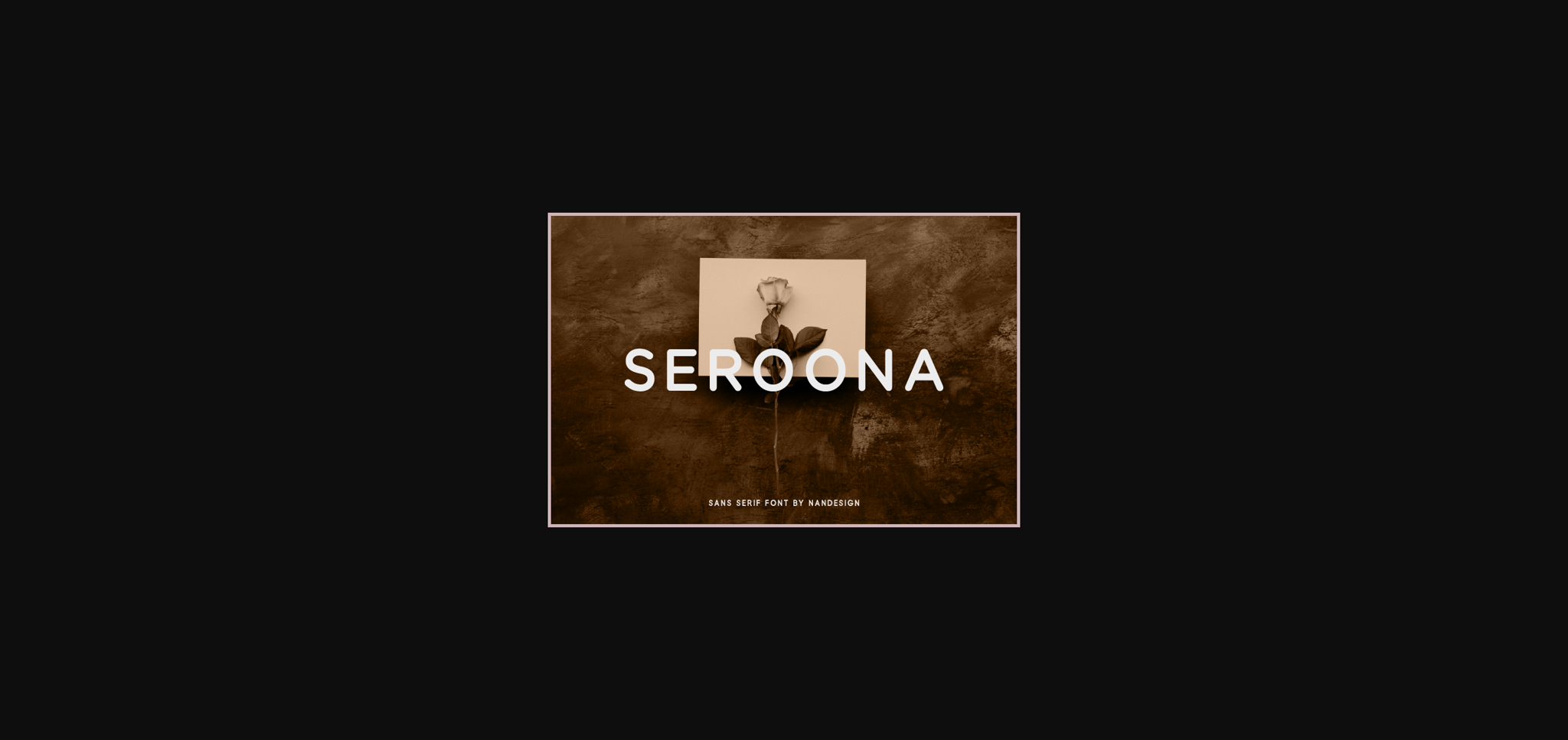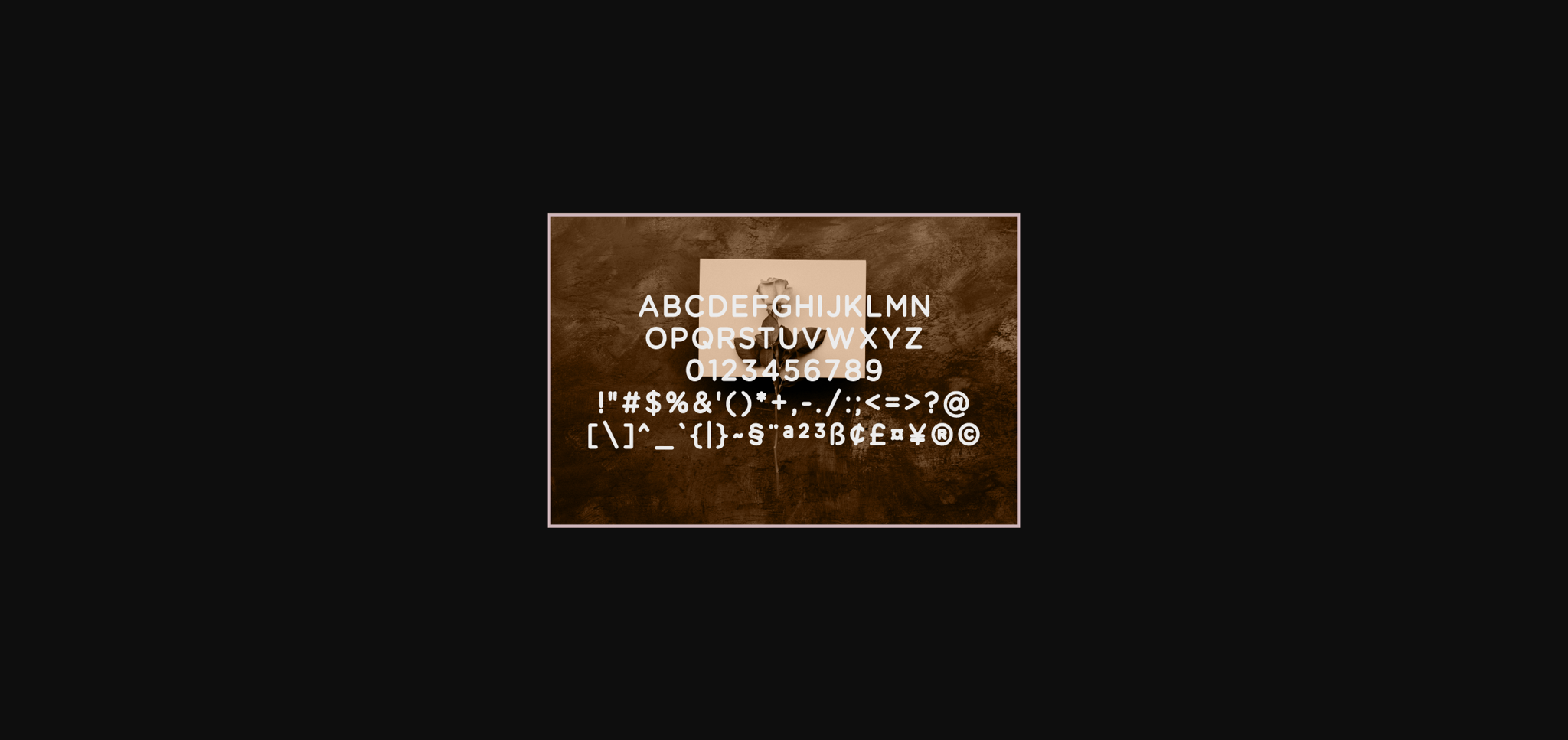
About Seroona Font
Seroona is a clear and clean sans serif font with an undeniably clean feel. With its neat and beautiful arrangement of letters, this typeface will look outstanding in both formal and non-formal designs.